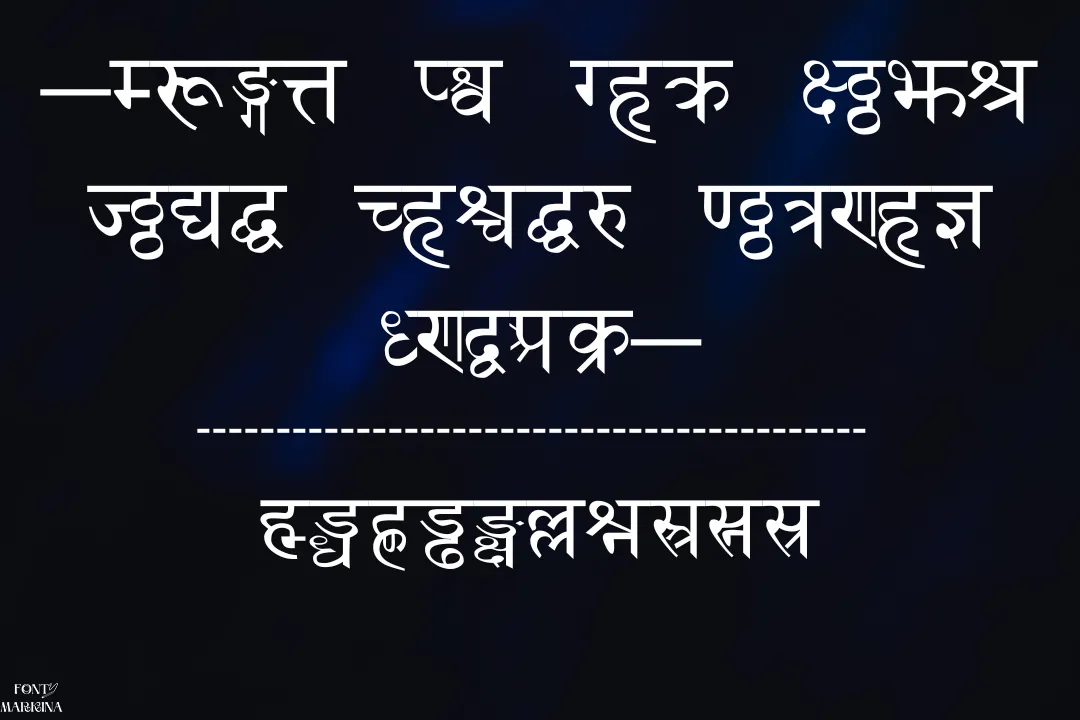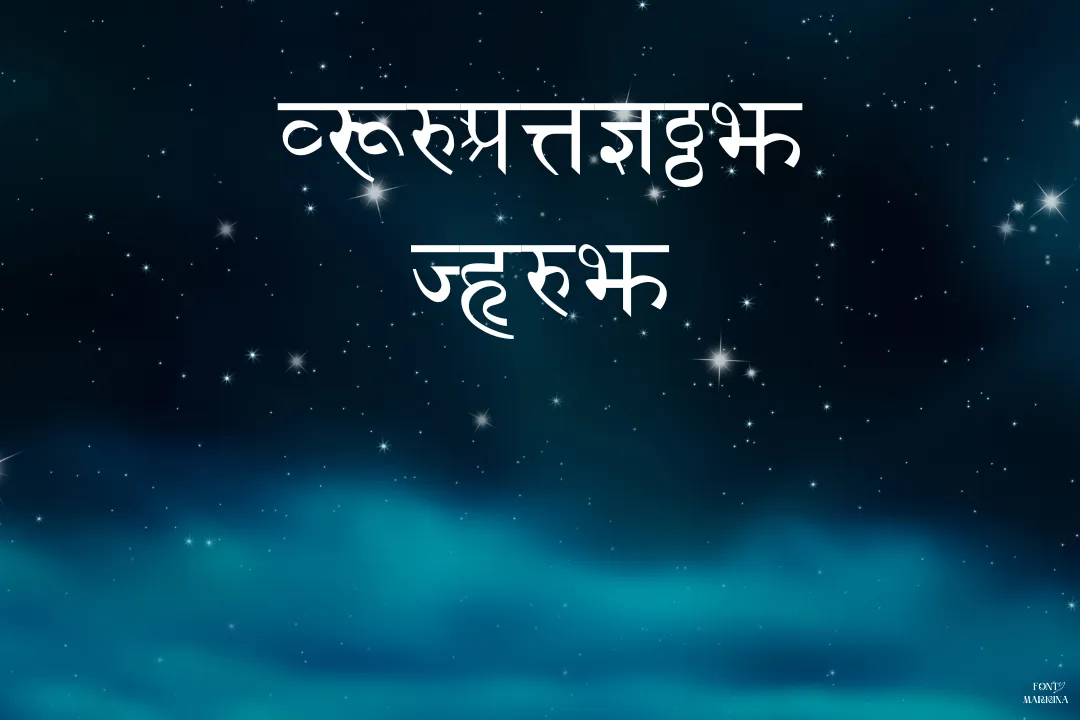
We are introducing! for all of you Sanskrit Font with all features in detail. This family lies in the classification of Hindi fonts. Microsoft developed this family of textures in the Indian Sanskrit language after hard work.
One more notable and classic feature of this family is that this typography consists of 178 strong and classic characters in Hindi structure. And around about 50+ glyphs contain this family with one amazing regular style.
Devlys 010 font is similar to this family for other textures. This typeface has an online tool for graphic and calligraphy designs known as the generator tool. Especially, this family is well-suitable and effective in Word and Mac.
Who Can Use Sanskrit Font
When it comes to the uses of Sanskrit Font that is shocking for you that it covers almost all fields related to design and the business industry. In all higher organizations, this family is mostly used for all higher and sensitive projects.
However, in game development, the worth of this family is also very high. Because of its Hindi words, this family is perfect for all business works like reports of different projects, records of items, presentations and data about goods, and much more.
In short, you can utilize this family in every design of your desire and requirement without any worry. It will return very amazing and flawless results. Even in Canva, the result of this family is outstanding.
Sanskrit Font View
Which font is used for Sanskrit?
Devanagari font is selected for the typesetting of this family of fonts.
Where we can use Sanskrit font?
What is the category of Sanskrit?
This family falls in the classification of Hindi fonts.